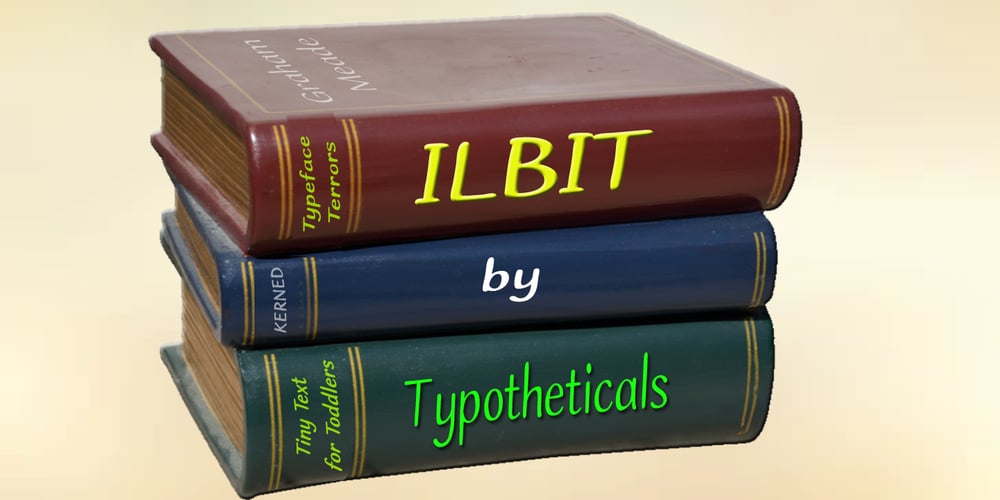
Ilbit
Ilbit font
Ilbit Font Family was designed by Graham Meade and published by Typotheticals. Ilbit contains 16 styles and family package options. A Rough FaceUpdated in 2022 to include an expanded range of typefaces